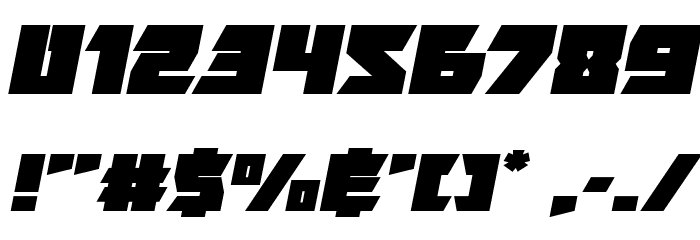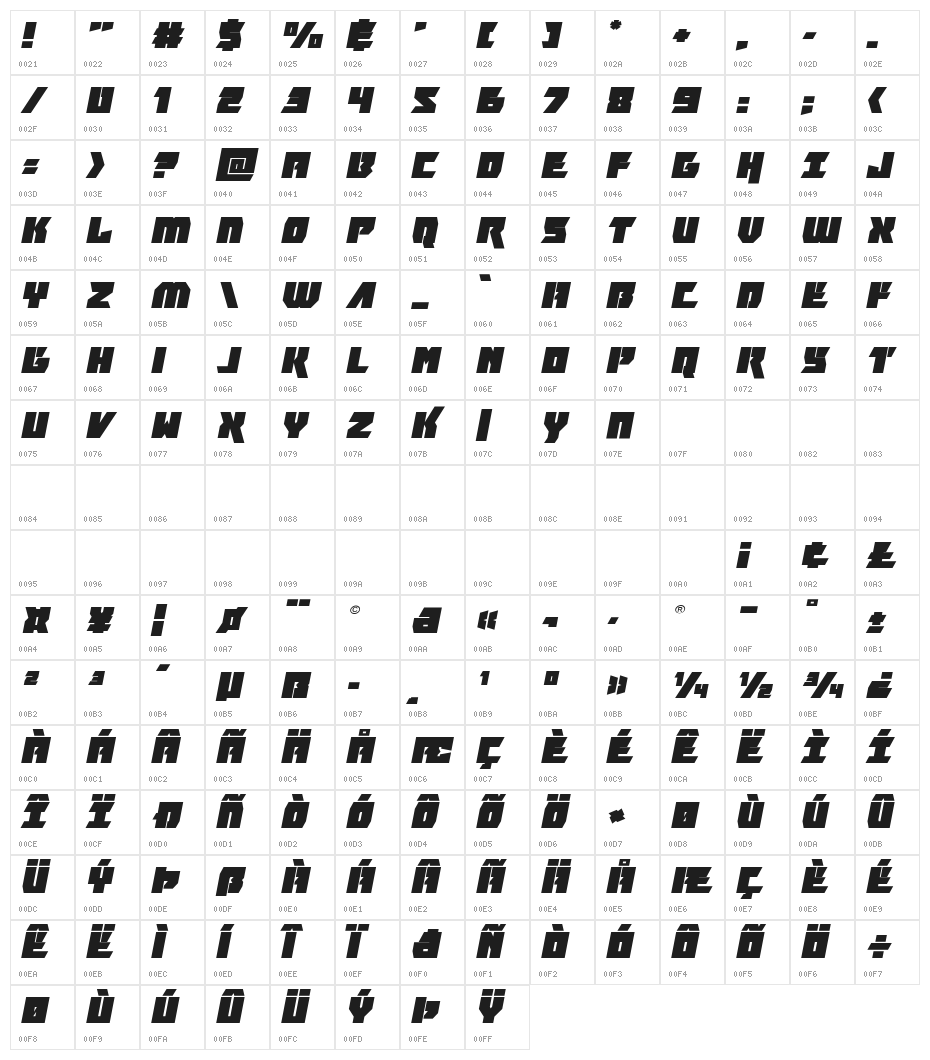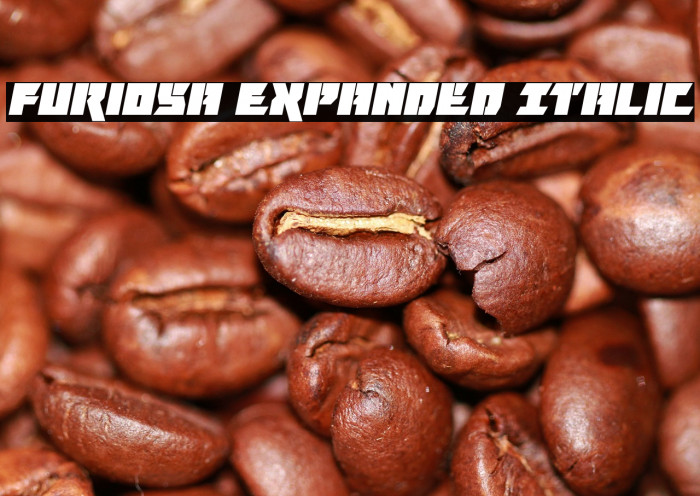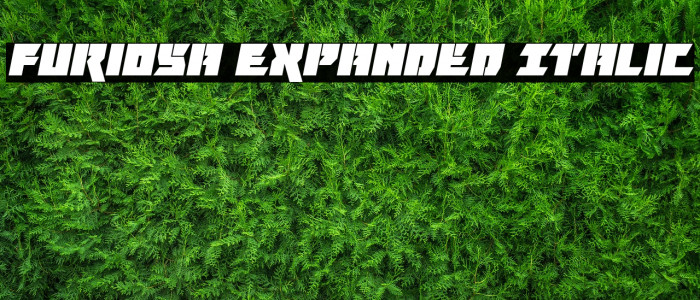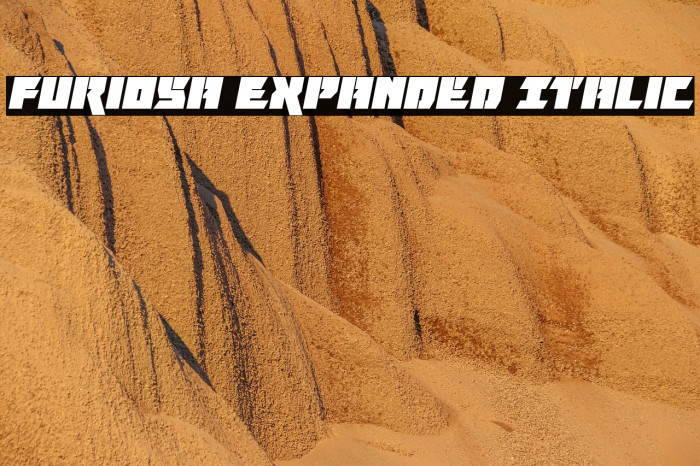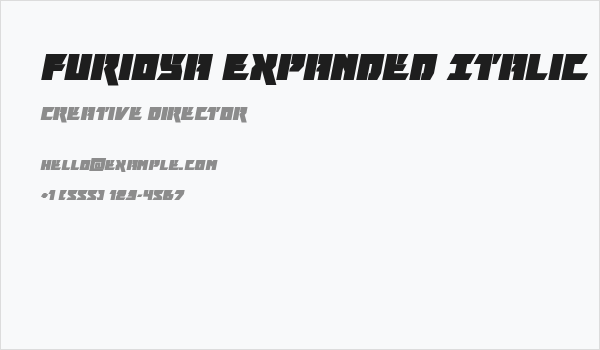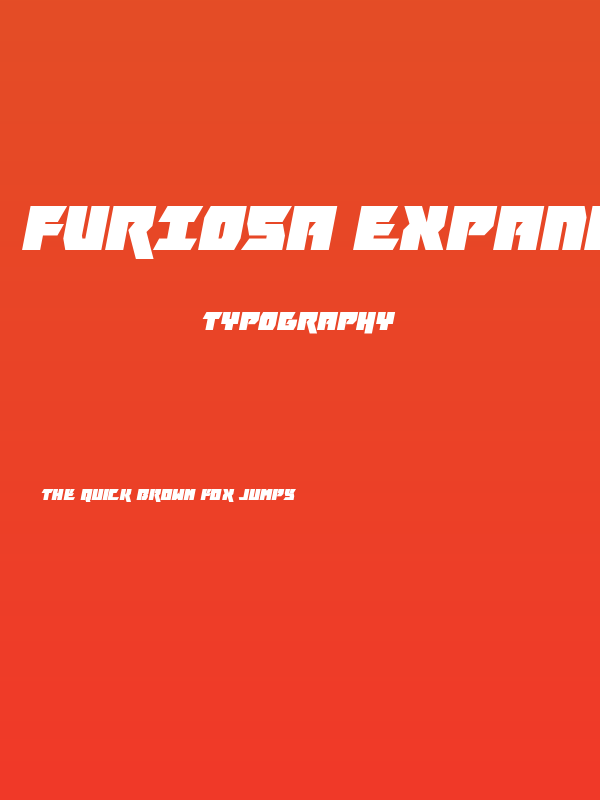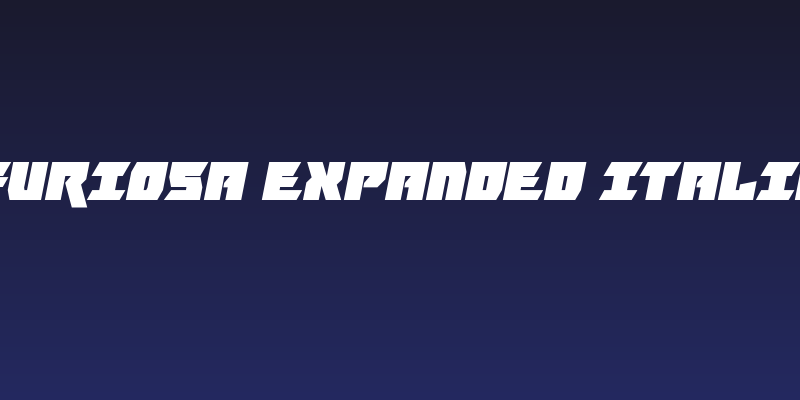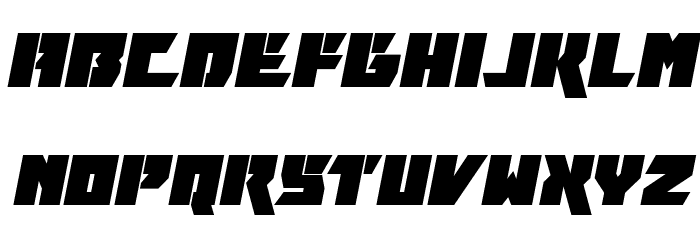
Furiosa Expanded Italic Font
Furiosa Expanded Italic Description
This font features a bold and dynamic design with sharp, angular edges and a distinctly futuristic appearance. The characters are expanded and italicized, giving them a sense of motion and energy. The uppercase and lowercase letters maintain a consistent style, with strong geometric shapes and a slightly aggressive stance. The numbers and special characters follow the same aesthetic, ensuring uniformity across all glyphs. This font's unique style makes it stand out, ideal for projects that require a modern and edgy look.
| Proposed Projects | Ideal for sci-fi themed designs, video game titles, movie posters, and branding for tech companies. |